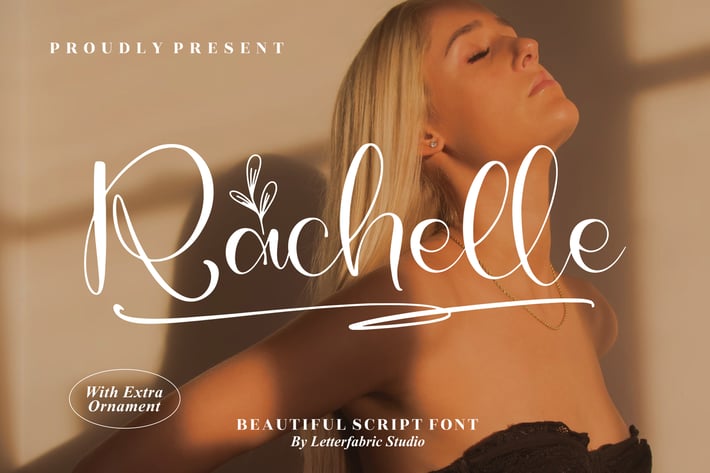
Rachelle Script Font
Rachelle Script Font is a beautiful and elegant handwritten script designed to bring a soft, romantic, and expressive feel to your creative projects. With smooth curves, refined strokes, and a natural handwritten flow, this typeface elevates branding, invitations, and social media designs with a warm, personal touch. Ideal for creators seeking a graceful and stylish script aesthetic, Rachelle Script Font adds sophistication and emotional charm to any layout.
Beautiful handwritten script style
Smooth, flowing curves for an elegant look
Natural stroke rhythm that mimics real handwriting
Includes additional ornamental elements
Soft, elegant, and effortlessly romantic — Rachelle Script Font adds graceful handwritten charm to every design.